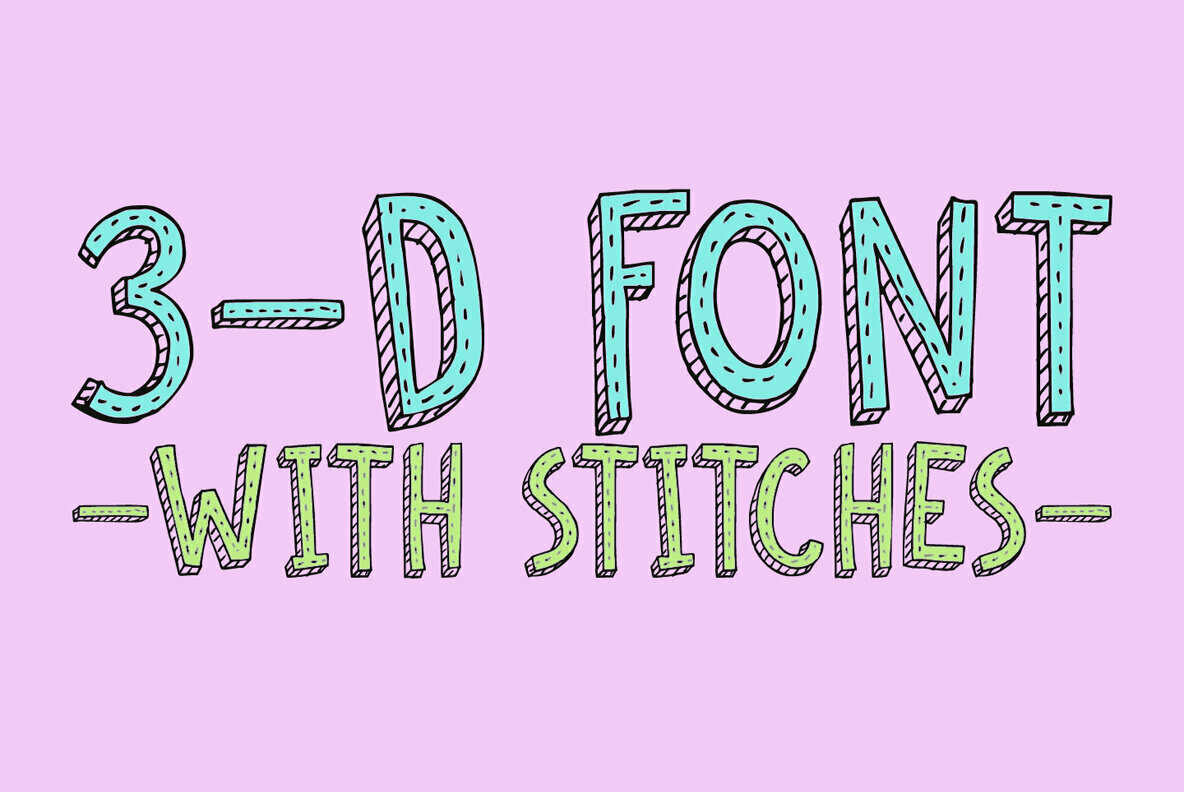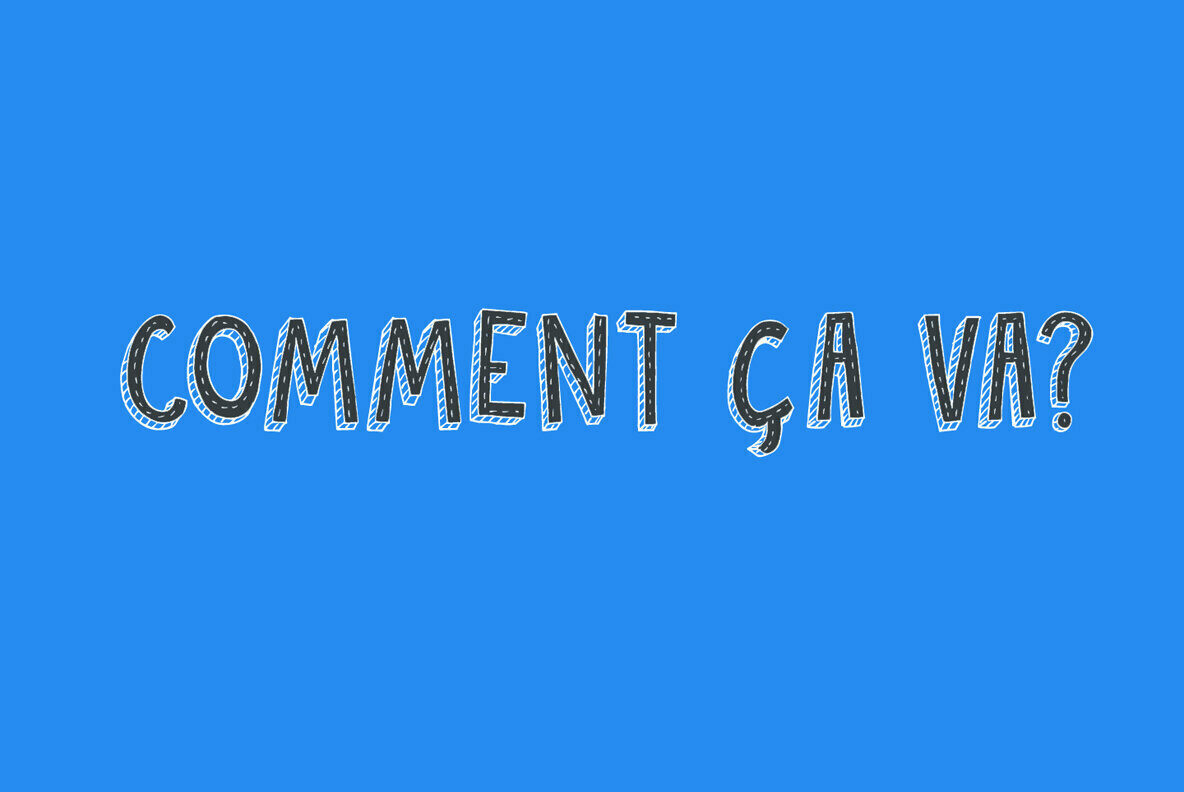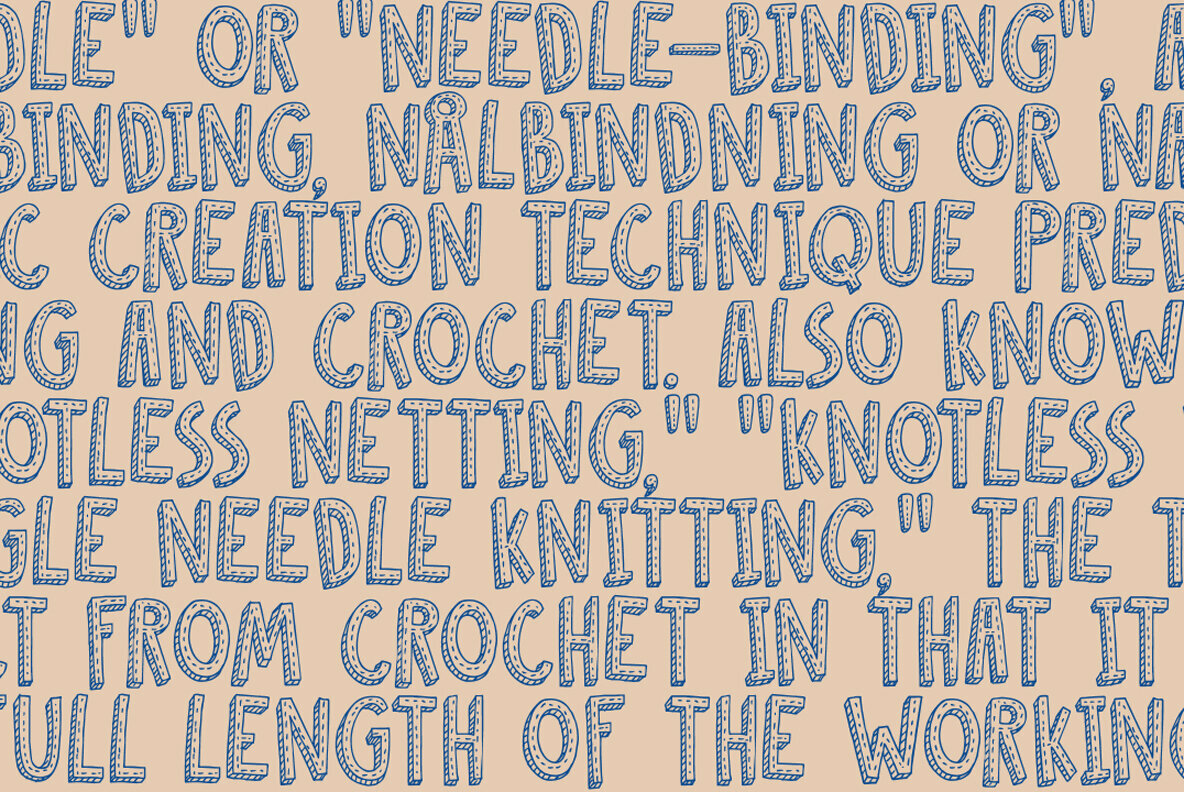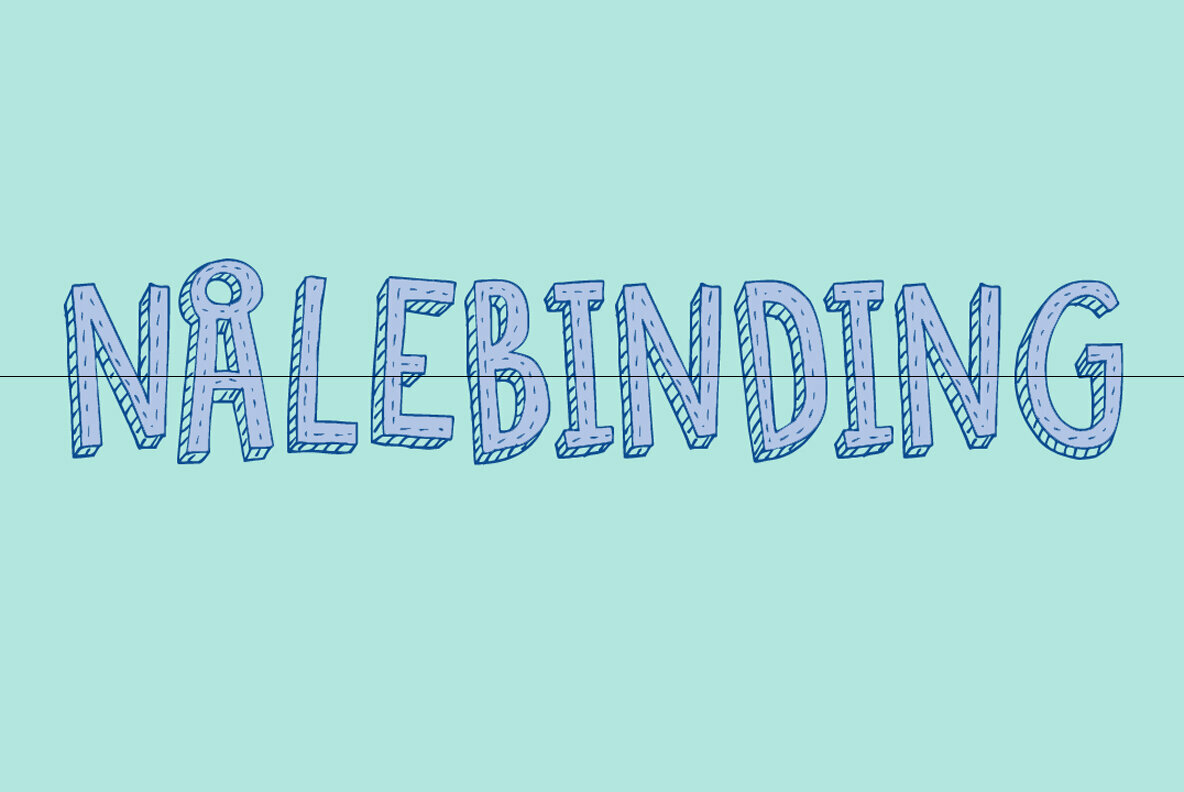
Oslo Stitch Font
Oslo Stitch
The Oslo Stitch is a technique used in Nålebinding, a kind of fabric creation predating knitting and crochet. I have no particular interest in Nålebinding (nor in knitting), but I needed a name with ‘stitch’ in it and this is what I found! Oslo Stitch font is a nice, handmade, all caps font, which you can use for your book covers, posters and anything else that needs a bit of stitching up.